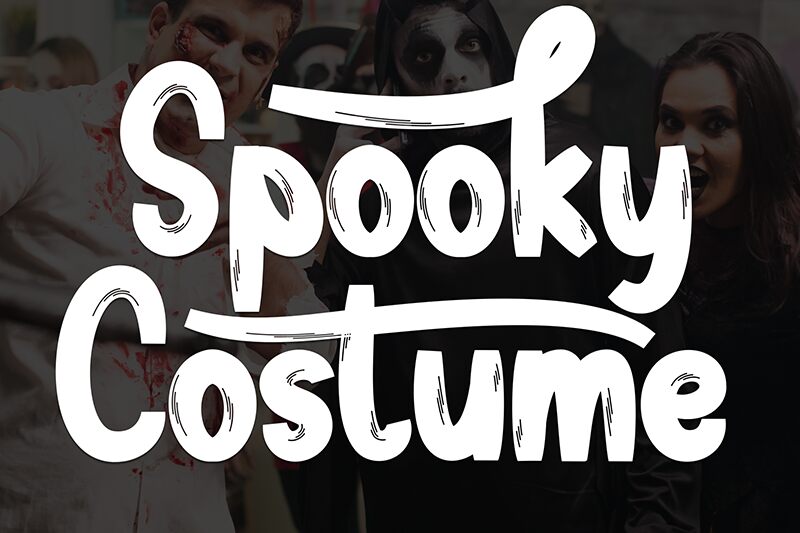
Spooky Costume
Spooky Costume font is a free brush font offered by Scratchones. The letters are uneven and their form irregular which plays into the casual style of this distressed and satisfying grayscale design. Strokes are noticeable thanks to the thinly painted texture, achieving an overall grunge appearance with an eerie yet beautiful theme.
Labels for cosmetics, book covers, social media graphics for Halloween, invitations, packaging ideas for coffee or craft beer together with publications such as magazines or newspaper articles are among many possible uses. Other ideas include product labels or description tags as well as educational applications in school activities and workshops at all levels.